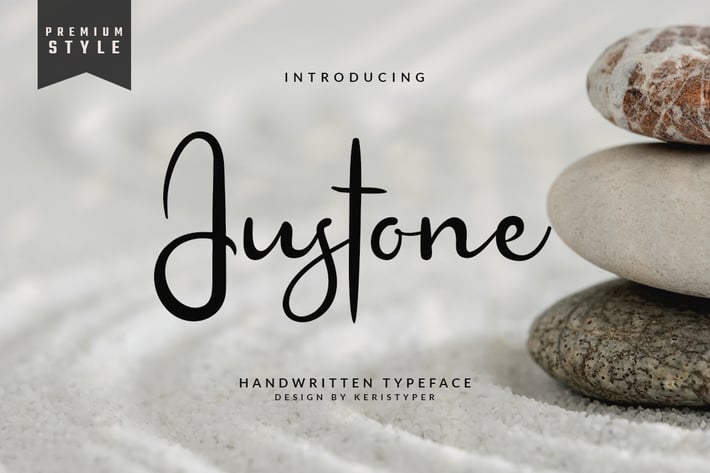
Justone Font
Introducing Justone font a casual stylish script font with regular contrast stroke. This font is perfect for your any design needs, such as badges, logos, posters, branding, packaging, signage, book cover.
Multilingual support:
Afrikaans, Albanian, Catalan, Danish, Dutch, English, Estonian, French, Finnish, German, Icelandic, Indonesian, Italian, Malay, Norwegian, Portuguese, Spanish, Swedish, Zulu, and many more.
Standard & Multilingual glyphs